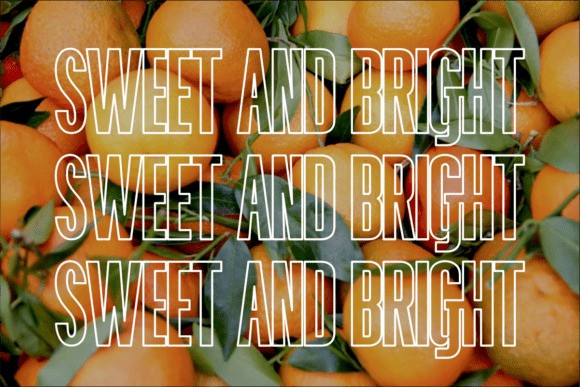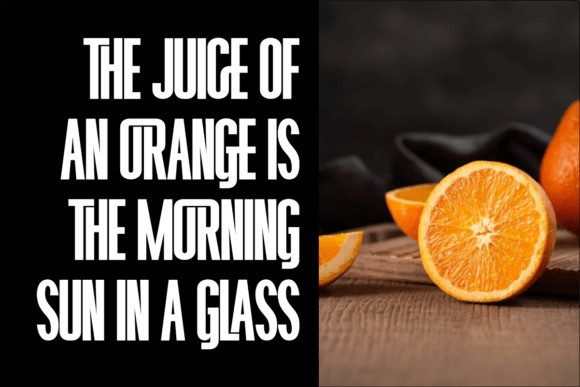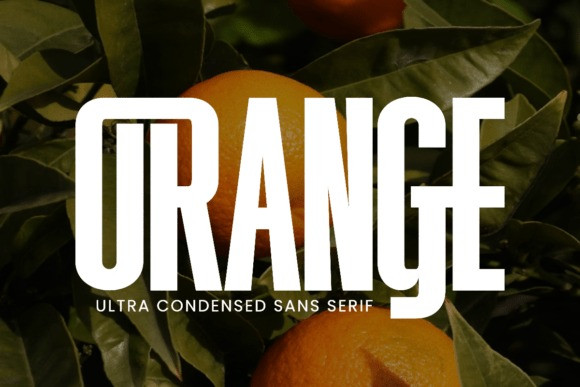
Orange Font
Orange Font is an ultra-condensed sans serif font with a bold and modern aesthetic. Its tall, sleek letterforms make it perfect for eye-catching designs such as t-shirts, branding projects, editorial layouts, and craft creations. With a professional yet creative vibe, Orange adds strong visual impact to any design while remaining highly versatile for both digital and print use.